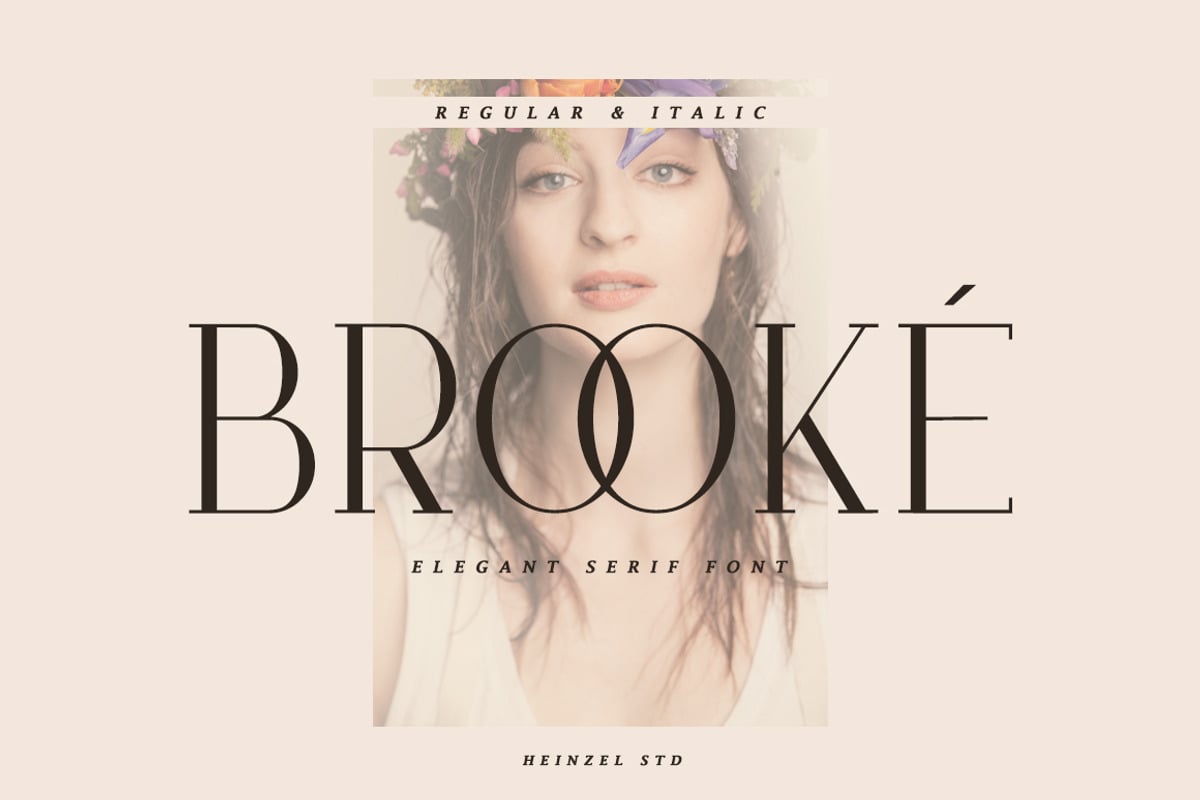
Brooke Minimalist Serif Font
Brooke is the refined serif typeface that brings timeless elegance and modern sophistication to every design.
Brooke is a minimalist serif font crafted for designers who demand both beauty and versatility. Its clean lines, graceful curves, and high readability make it a natural fit for branding, editorial design, packaging, fashion, invitations, and luxury logos — in both digital and print formats.
Available in 3 versatile weights, Brooke strikes the perfect balance between classic charm and contemporary style. Whether you're setting bold headlines or refined body text, its stylish simplicity adapts effortlessly to any creative direction.